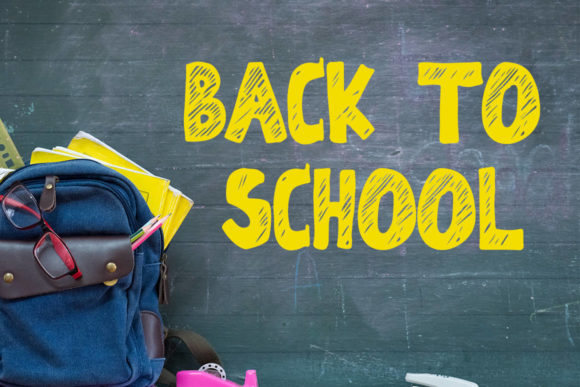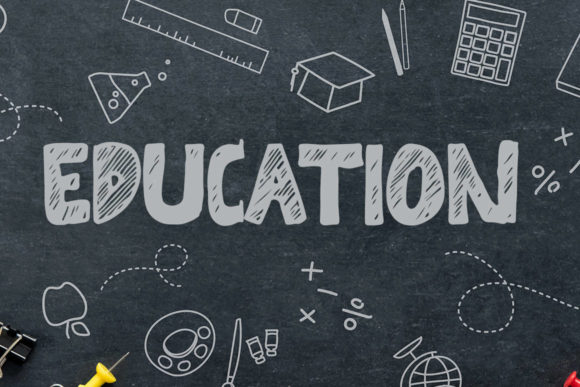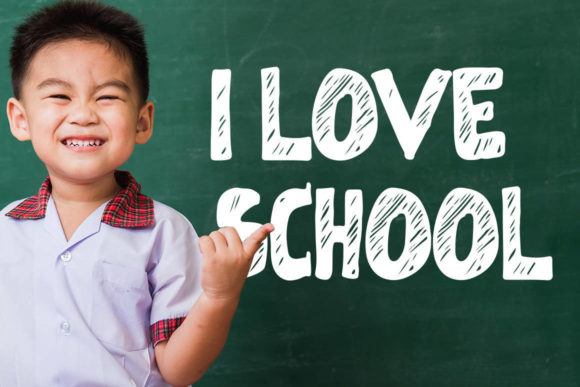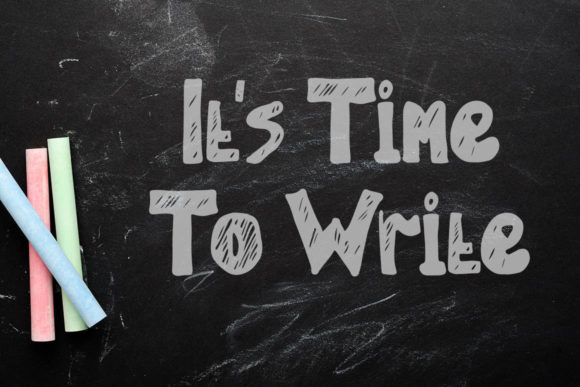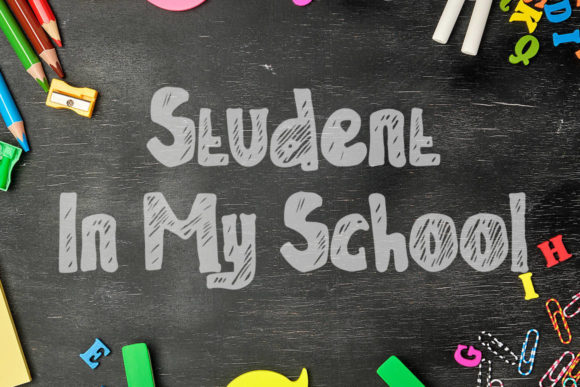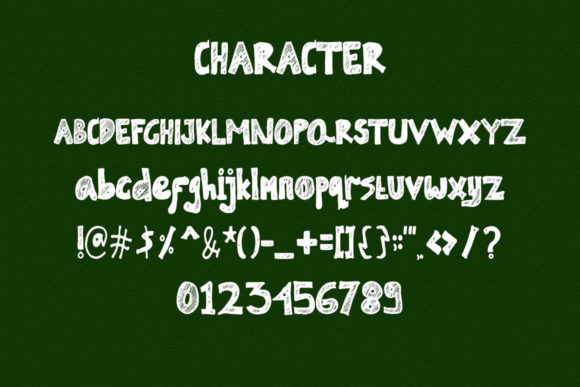
Introduction to Pencila Font
Have you ever been working on a creative project, pouring your heart and soul into it, only to find the perfect font to tie everything together? For designers, this moment is pure magic. It’s the moment when the design comes alive, and the message shines through. For me, that moment came when I stumbled upon the Pencila Font – a cute and fun display font that embodies playfulness and authenticity.
Whether you’re working on a children’s activity, a school project, or any other creative endeavor, the Pencila Font is a valuable resource to have in your design arsenal. Its chunky lettered design makes it a standout choice for any project that requires a touch of whimsy and fun. With a high-quality design and transparent background, this free download is perfect for adding an extra layer of personality to your designs.
Key Features of Pencila Font
- High-quality, professional design ideal for creative projects and design resources.
- Unique, hand-drawn style with a transparent background, allowing for versatile use in design.
- Perfect for use in logos, branding, and marketing materials due to its elegant and sophisticated design.
- Comes with a comprehensive character set, including uppercase and lowercase letters, numbers, and punctuation marks.
Honest Review: Pencila Font
As a designer, I’m always on the lookout for high-quality design resources to elevate my creative projects. Recently, I stumbled upon the Pencila Font, and I’m excited to share my thoughts on this free download.
- ✨ Unique and playful letterforms that add a touch of whimsy to any design
- ✨ High-quality vector graphics that ensure crisp and clear rendering
- ✨ Transparent background, making it easy to layer and combine with other design elements
- ⚠️ Limited font styles and weights, which may not be suitable for complex typography projects
- ⚠️ Not suitable for use in small text sizes, as the letterforms may become pixelated
Overall, I’m impressed with the Pencila Font’s potential to add a creative spark to designs. While it may not be the most comprehensive font family, its unique style and high-quality graphics make it a valuable addition to any designer’s toolkit.
Getting the Most Out of Pencila Font
For optimal results, use Pencila Font in conjunction with a high-quality design project. Experiment with different font sizes and colors to create a visually appealing design. Additionally, consider using a transparent background to create a seamless design experience.
Pencila Font is commonly used in creative projects such as logo design, brochure design, and social media graphics. Its high-quality design and transparent background feature make it an ideal choice for designers looking to create professional-looking designs.